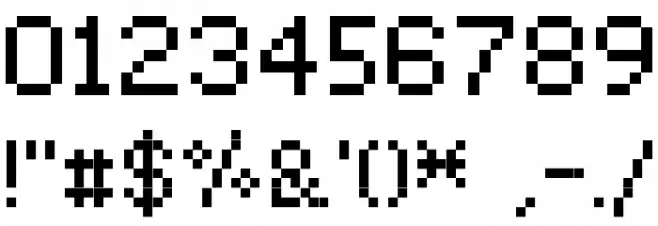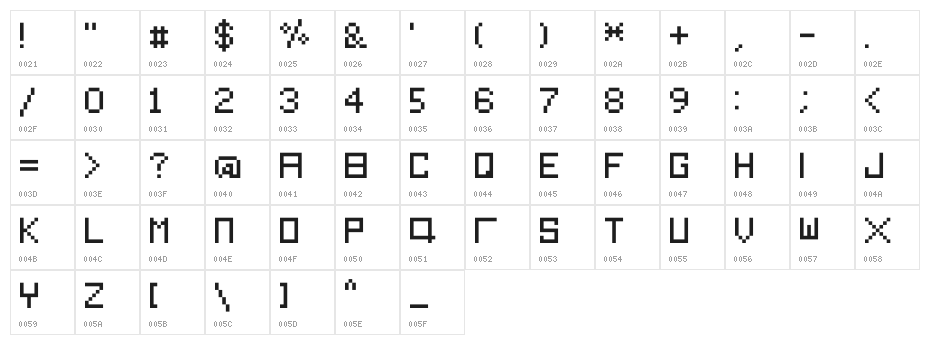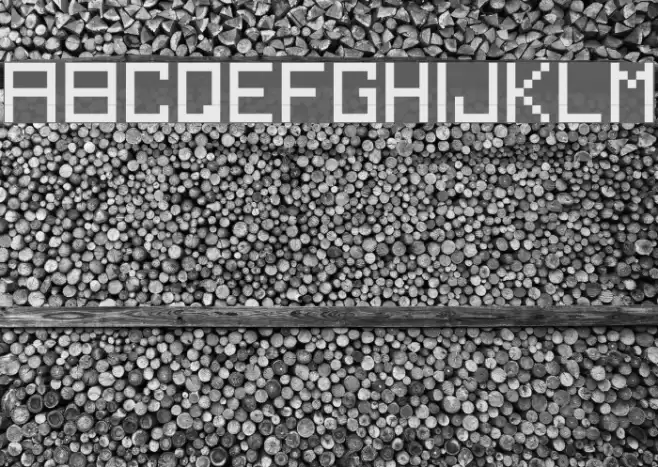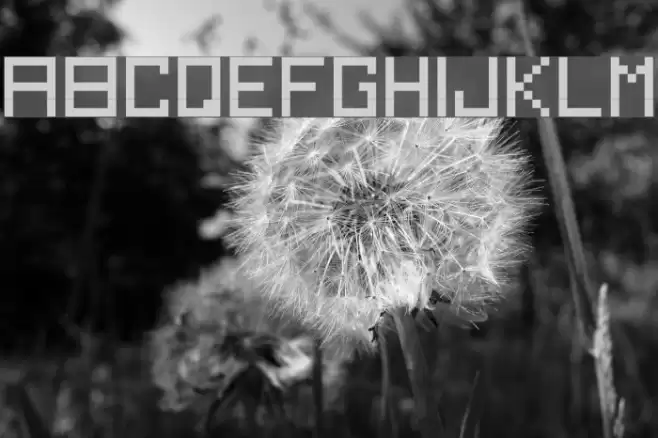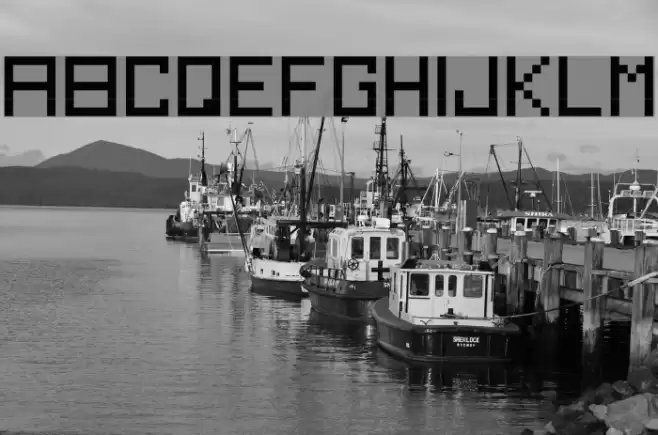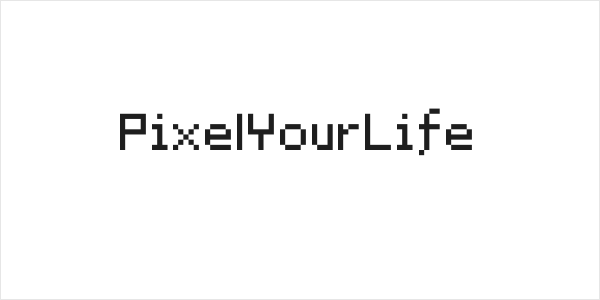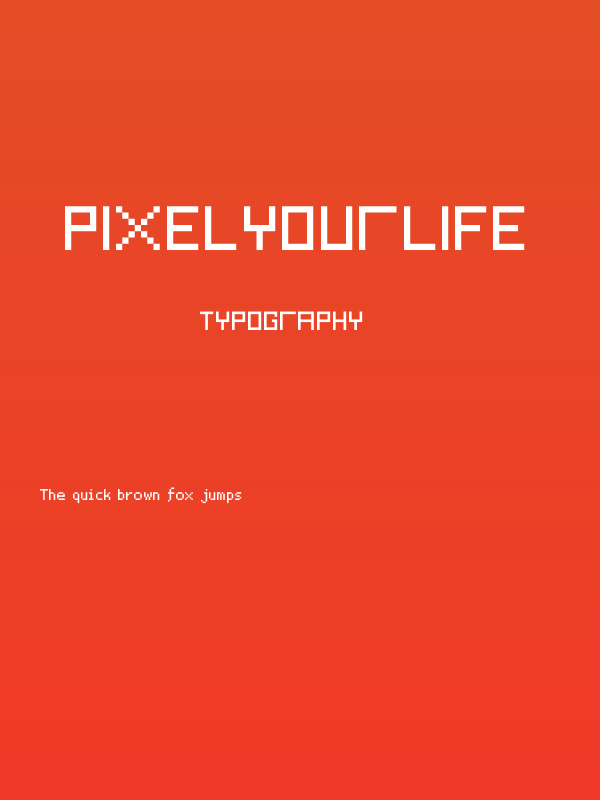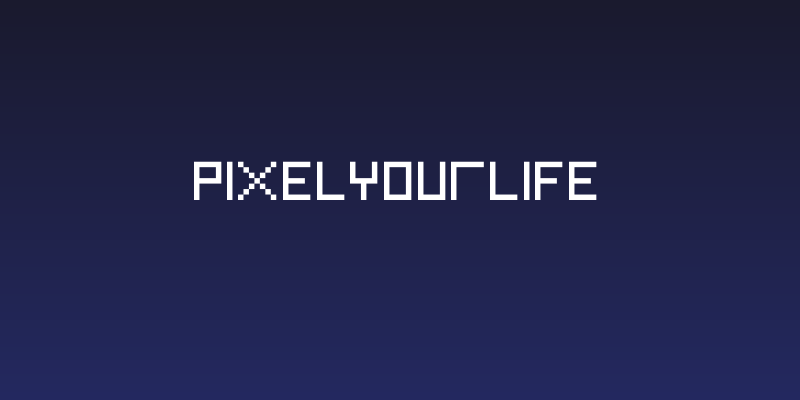
PixelYourLife Font
PixelYourLife Description
This font features a distinct pixelated style reminiscent of early digital displays and video games. Each character is constructed with a grid-like precision, giving it a retro and digital aesthetic. The uppercase and lowercase letters maintain a consistent blocky appearance, while the numbers and special characters follow the same pixelated design. This uniformity across all characters ensures readability and a cohesive look. The font's geometric and monospaced nature makes it ideal for projects that require a digital or vintage computer feel.
| Use Case | Logos, Headlines, Digital displays |
| Proposed Projects | Ideal for video game design, digital art projects, retro-themed websites, and tech-related branding. |